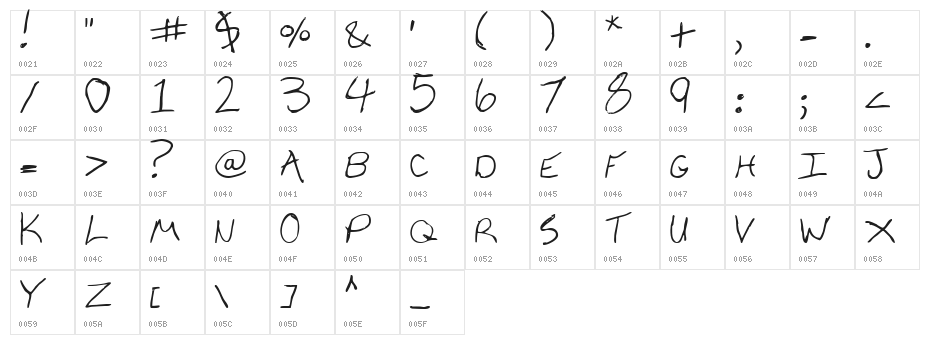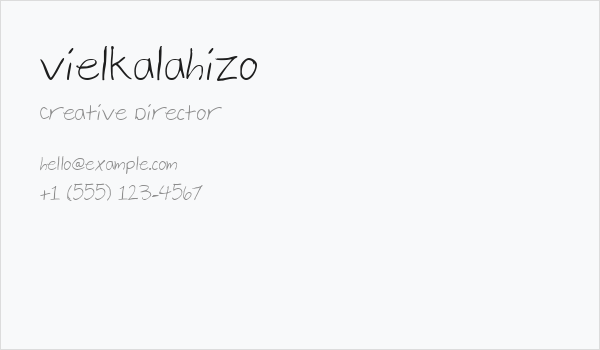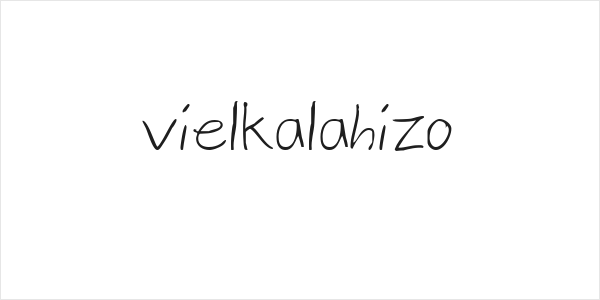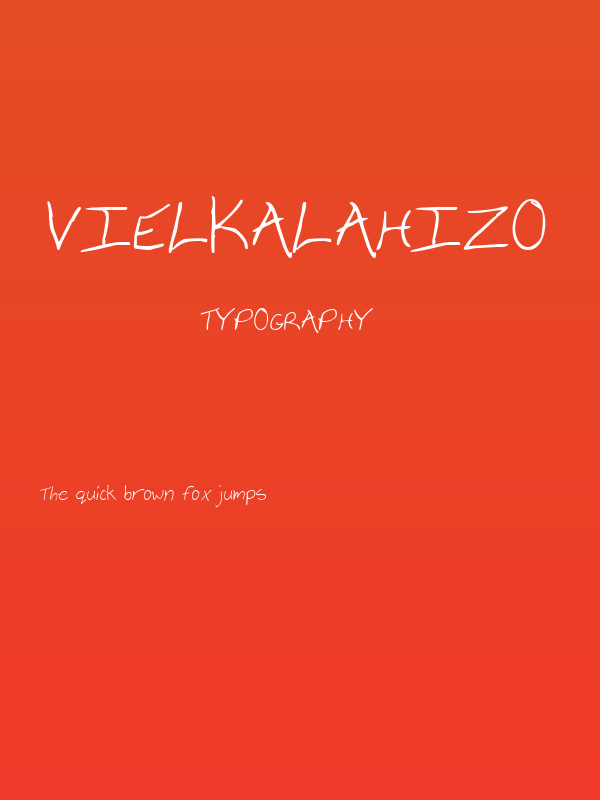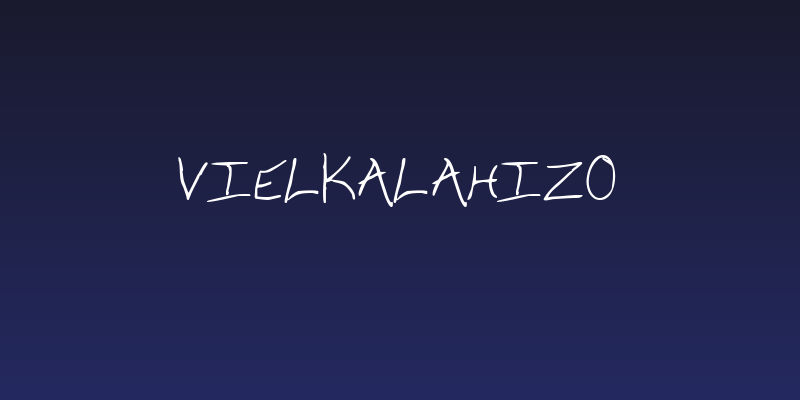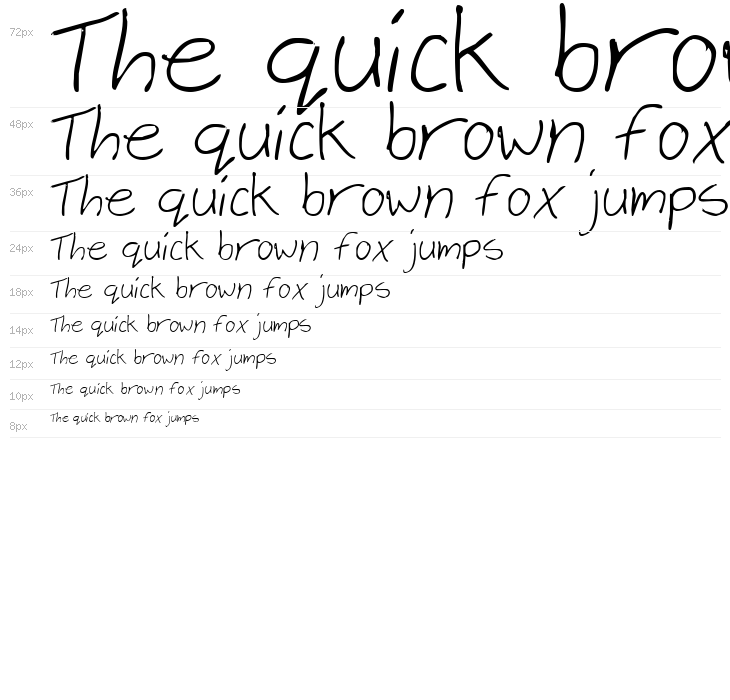
vielkalahizo Font
vielkalahizo Description
This font exudes a casual and playful handwritten style, characterized by its irregular strokes and informal appearance. The letters are slightly slanted, giving a dynamic and energetic feel. The uppercase and lowercase letters maintain a consistent flow, while the numerals and special characters blend seamlessly into the overall design. The strokes vary in thickness, adding a touch of authenticity and spontaneity, reminiscent of a quick, personal note or sketch. The font's organic and approachable nature makes it suitable for projects that require a personal touch or a creative flair.
| Proposed Projects | Ideal for greeting cards, personal blogs, creative branding, and informal invitations. |